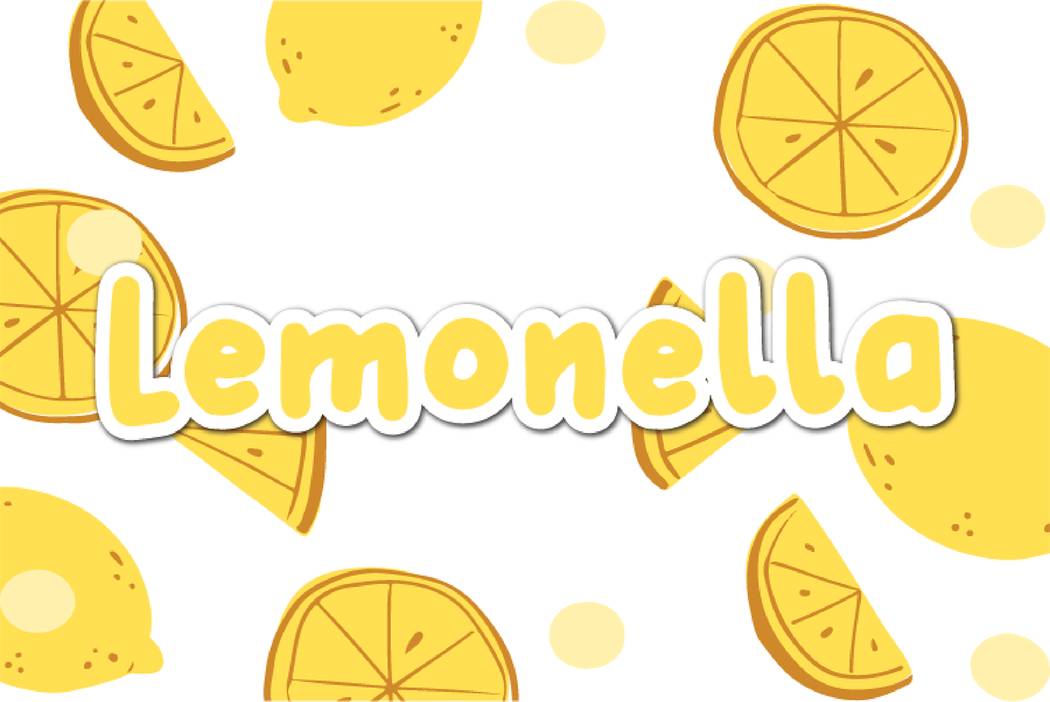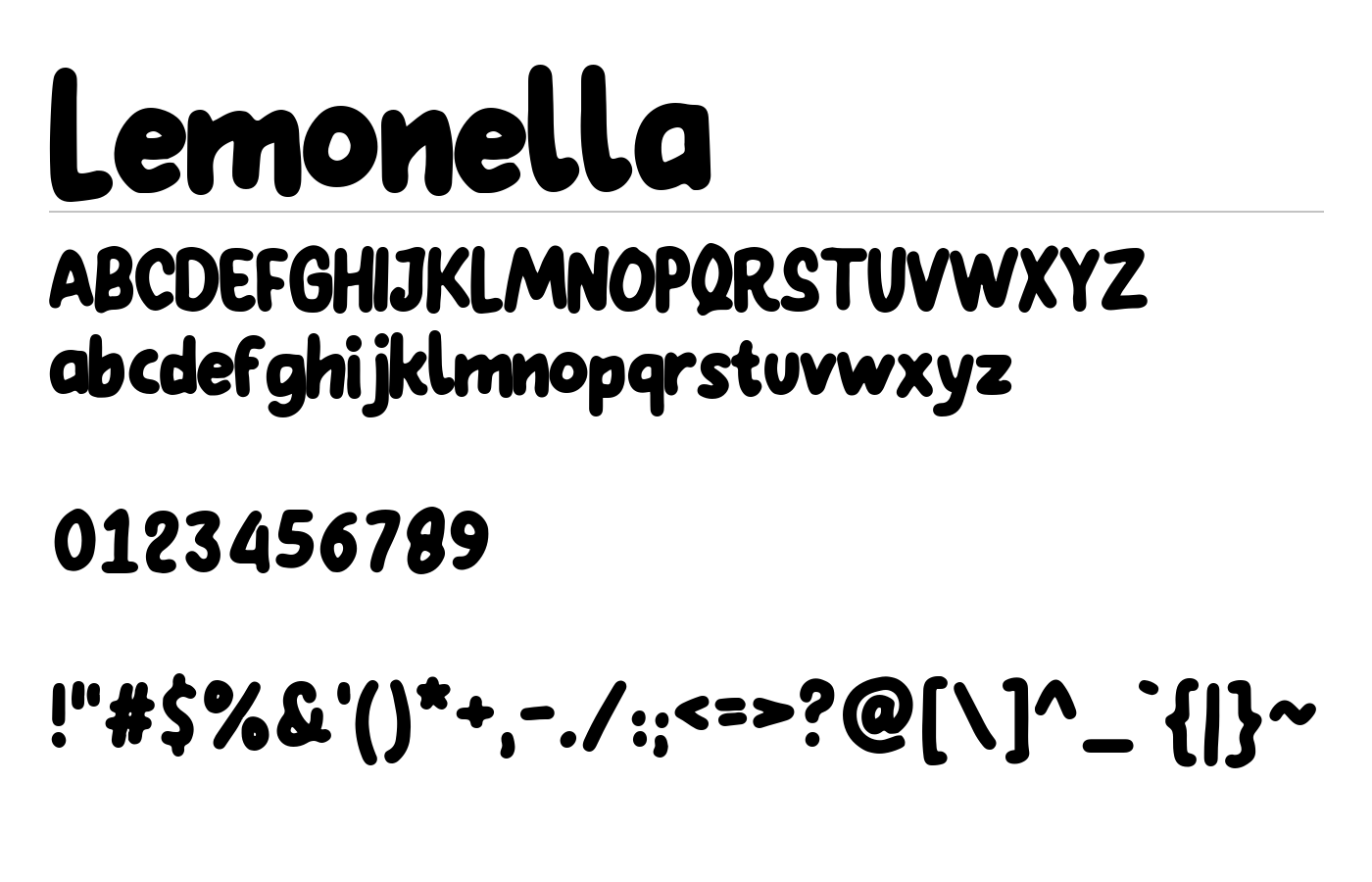
Lemonella is a playful and bold sans serif font with a chunky, rounded style that gives it a friendly and approachable feel. Its thick strokes and casual, slightly irregular shapes make it perfect for fun and informal designs such as children’s projects, posters, or branding that aims to convey warmth and creativity. This font works best in headlines and display uses where its unique character can shine and grab attention.
Lemonella Font
About Lemonella Font
| Font family | Lemonella Font |
| Release date | 2021-11-03 |
| Designer | Lady Hanna |